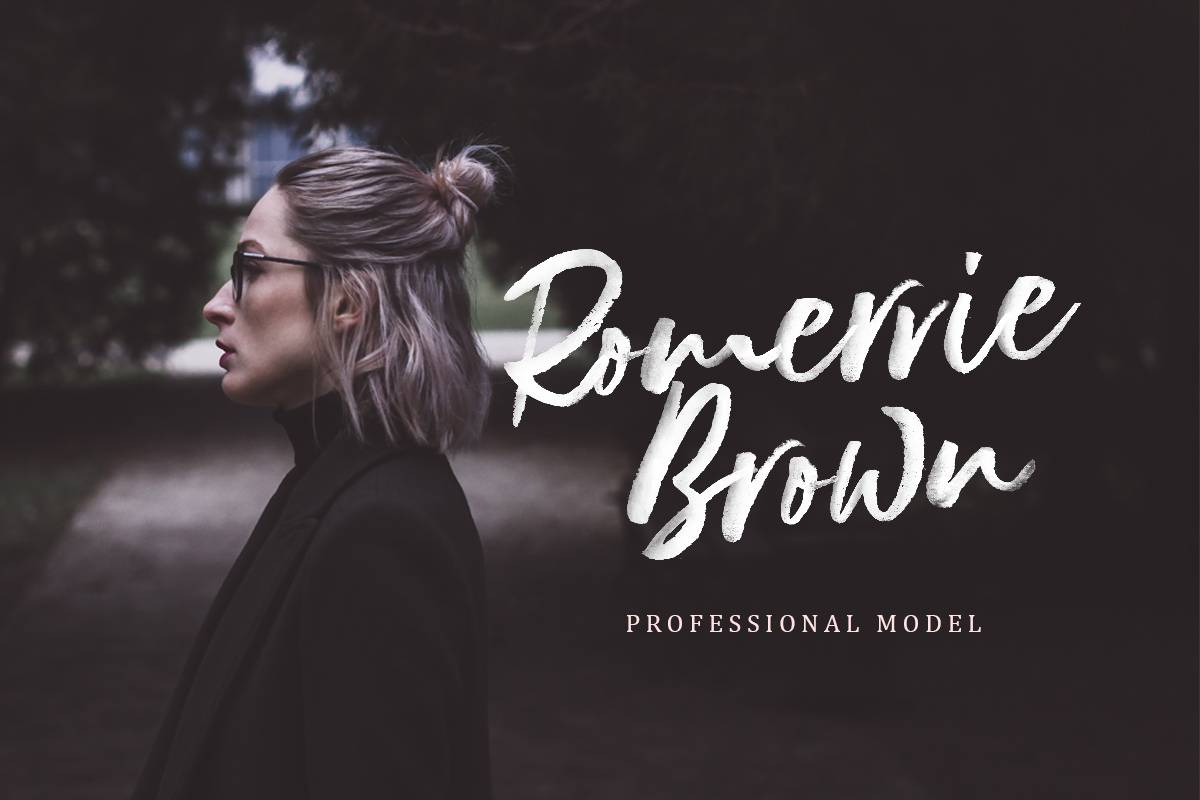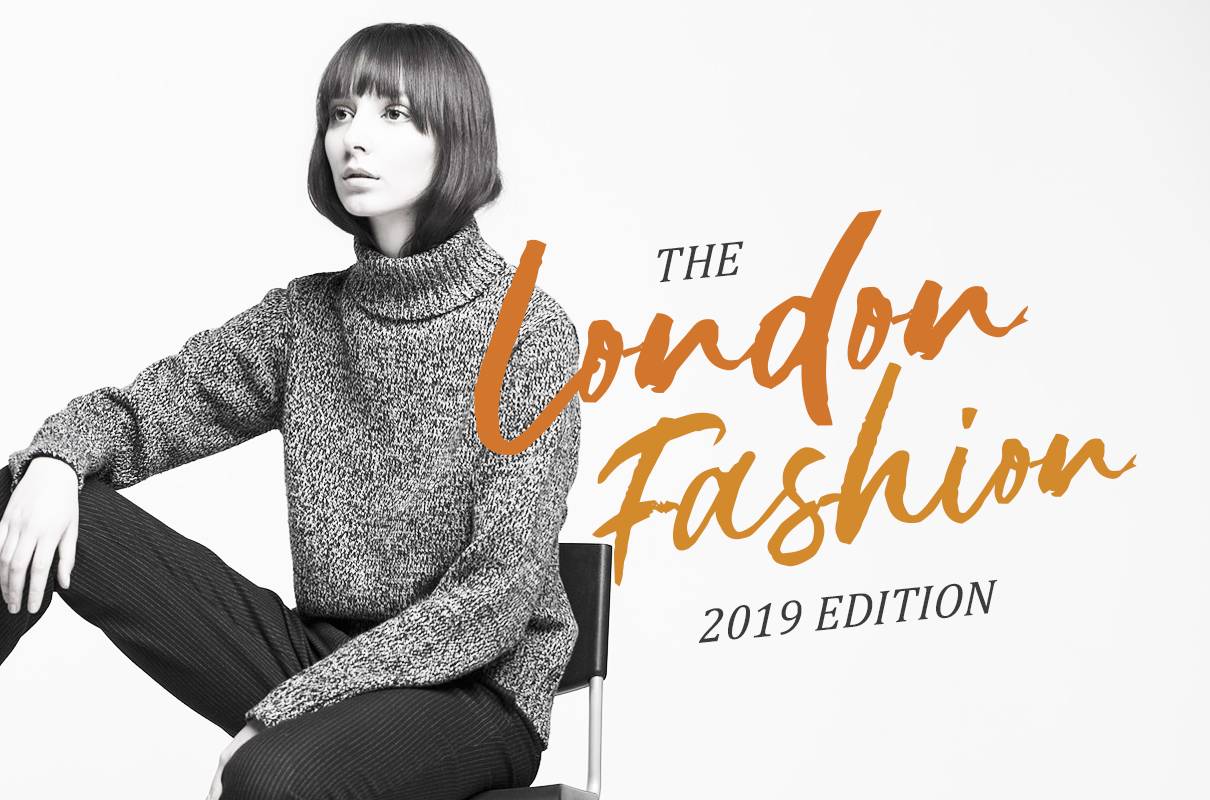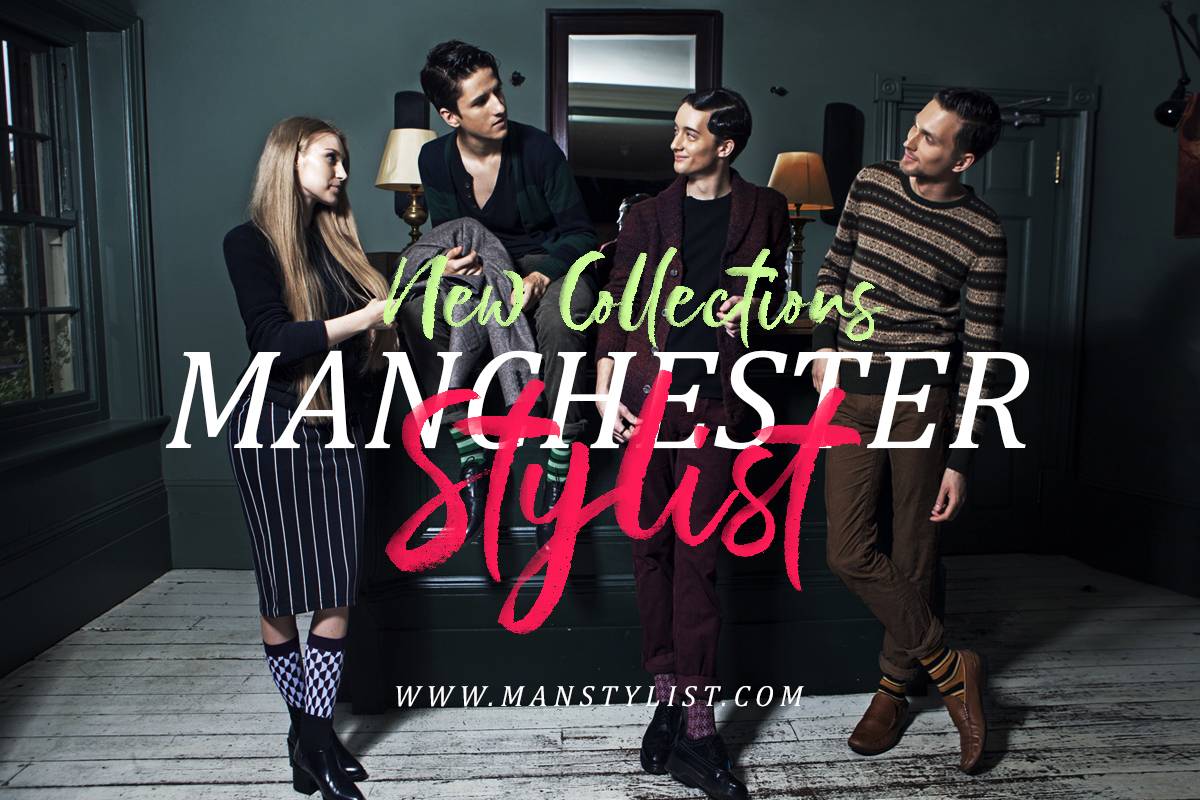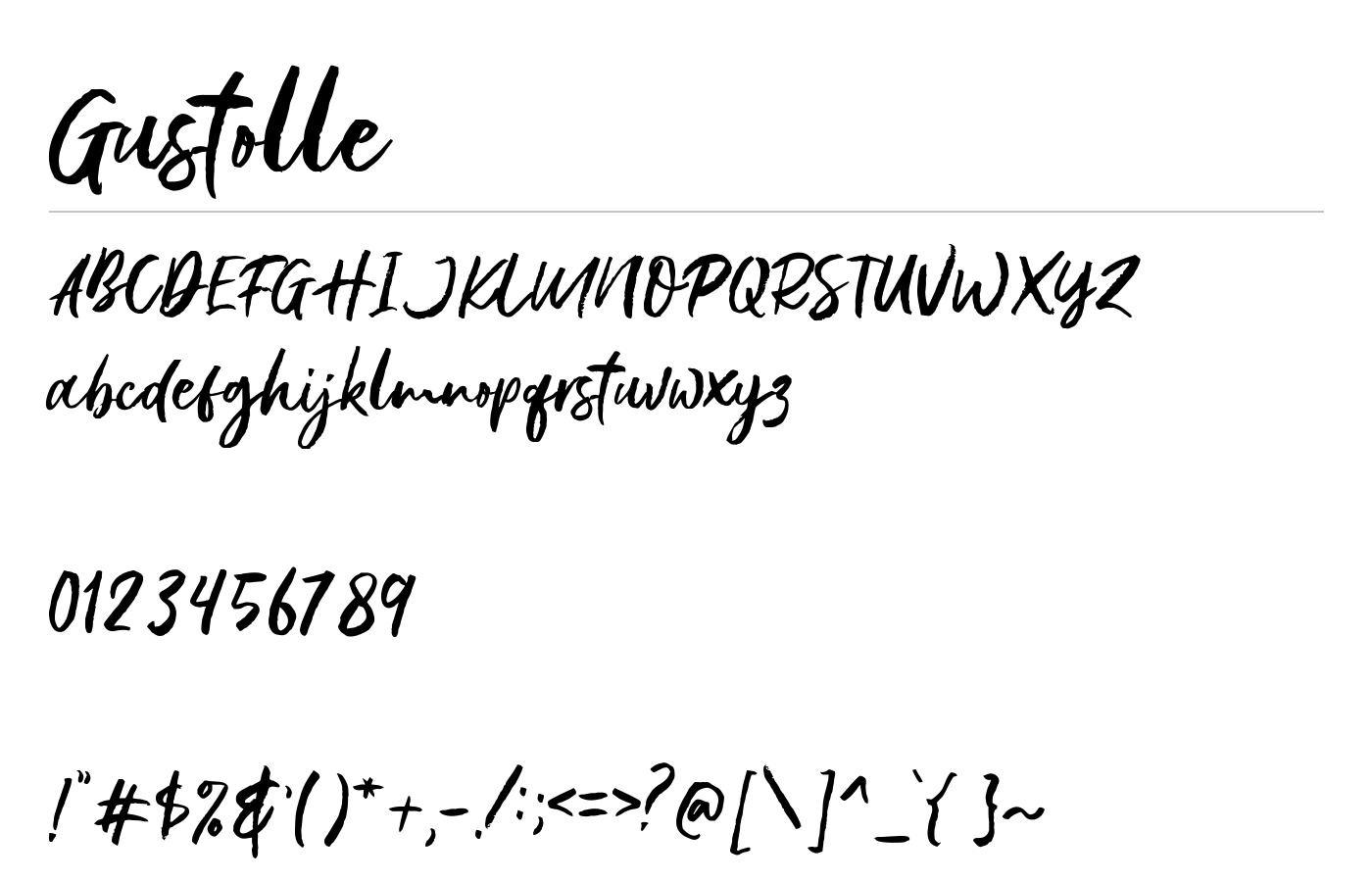
Gustolle is a lively brush script font that combines a natural, hand-painted feel with energetic, flowing letterforms. Its medium weight and slightly condensed style, paired with dynamic stroke variation, give it a confident yet approachable personality, making it ideal for creative branding, packaging, and expressive headlines. This font works beautifully where a personal, artistic touch is needed, adding warmth and style to any design.
Gustolle Font
About Gustolle Font